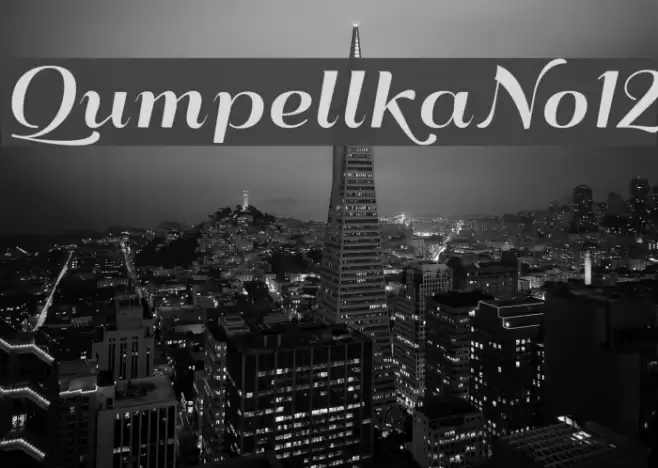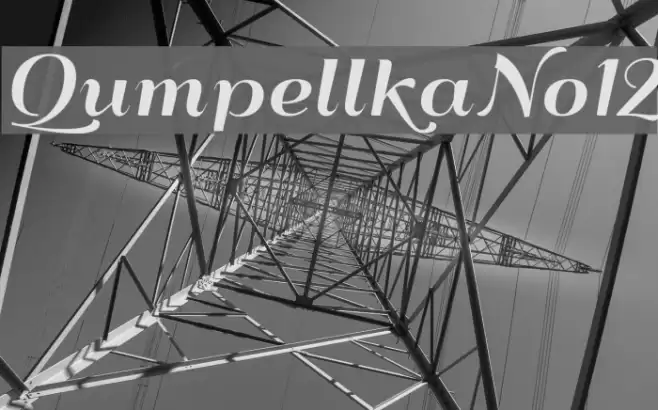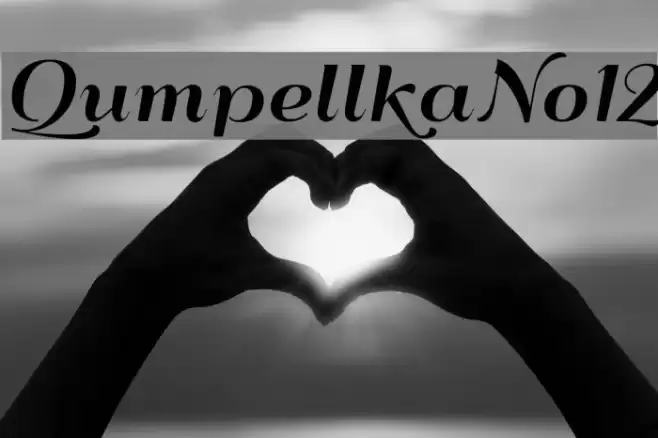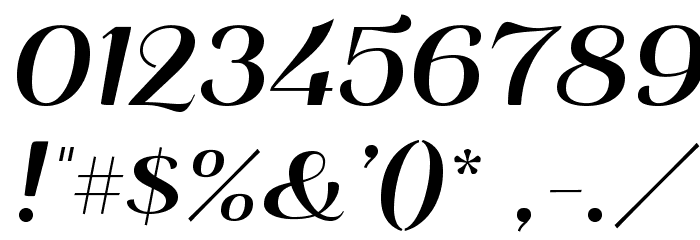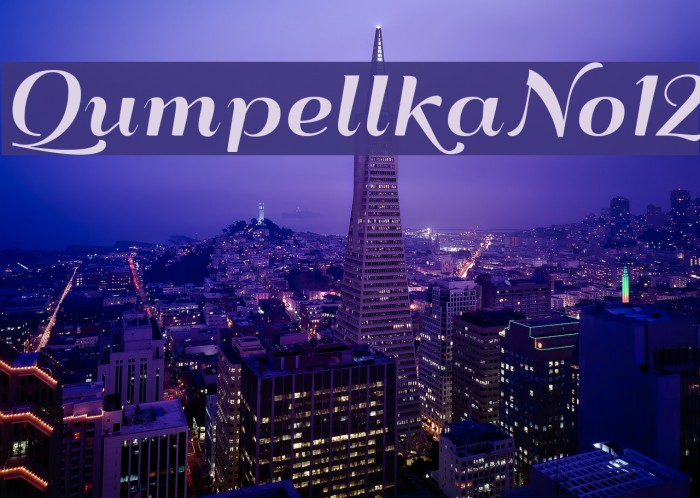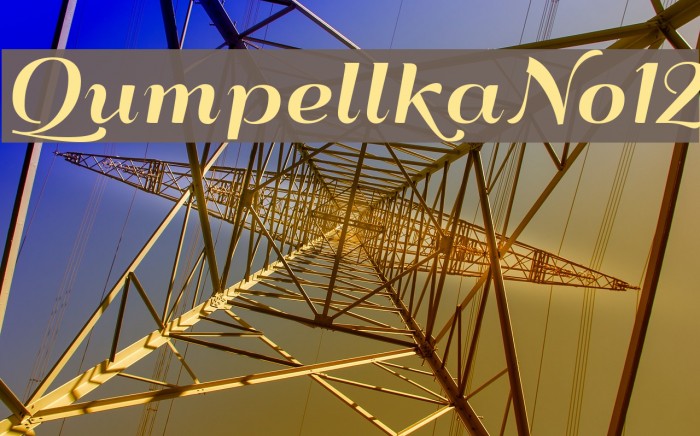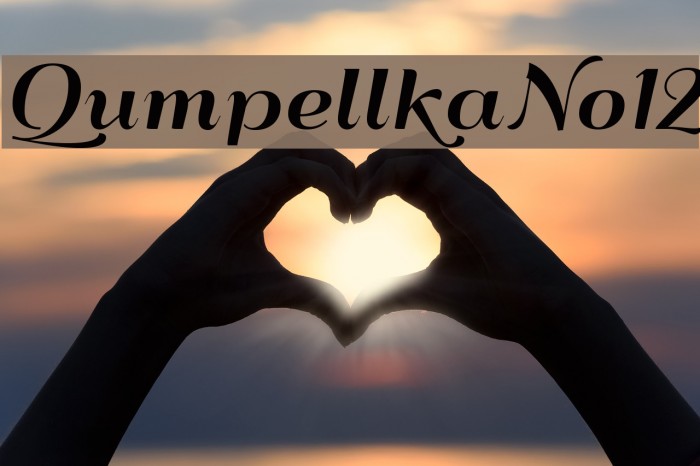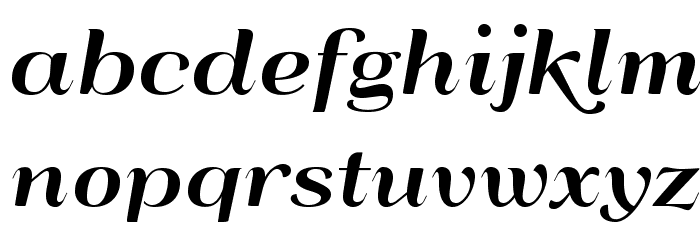
QumpellkaNo12 Font
QumpellkaNo12 Description
This font features a sophisticated and elegant design, characterized by its flowing, cursive-like strokes and high contrast between thick and thin lines. The uppercase letters exhibit a graceful flair with subtle curves and swashes, adding a touch of formality and style. The lowercase letters maintain a consistent rhythm, with rounded forms and smooth connections that enhance readability. The numerals are distinct and bold, ensuring clarity in numerical data. Special characters are thoughtfully designed to complement the overall aesthetic, making this font versatile for various applications.
An elegant, high-contrast script font with flowing, cursive-like strokes from Uncategorized fonts.
- Proposed Projects: Ideal for wedding invitations, luxury branding, elegant packaging, and editorial design.
- Overall Style: Elegant
- Use Case: Logos, Invitations, Branding